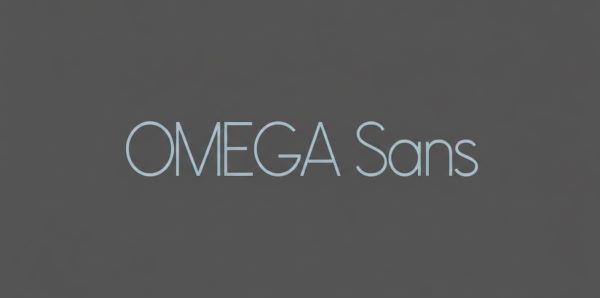
Omega Sans
Omega Sans font represents typography excellence through its harmonious fusion of classic elegance and contemporary minimalism. Designed by Anthony James, this exceptional sans-serif typeface showcases minimal anchor points paired with impeccably balanced Beziér curves, resulting in sharper geometric aesthetics that transcend conventional basic sans-serifs. With comprehensive multilingual support spanning 120 Latin-based languages, Omega Sans delivers truly global reach for international design projects demanding sophistication and versatile functionality across diverse applications and contexts.